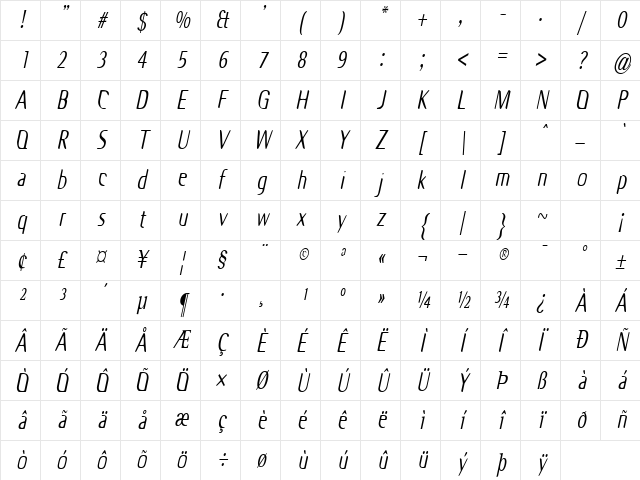
OdysseyCondensed Oblique
OdysseyCondensed Family
OdysseyCondensed Oblique
Design Context for OdysseyCondensed
OdysseyCondensed is a composed and adaptable typeface that performs quietly and consistently across a wide range of design contexts. The slanted form adds forward momentum and visual energy. Its narrow stance lets it pack a punch even in space-constrained designs.
Pro Tip: Use OdysseyCondensed for emphasis, pull quotes, and subheadings where its slanted energy can add rhythm to the layout.